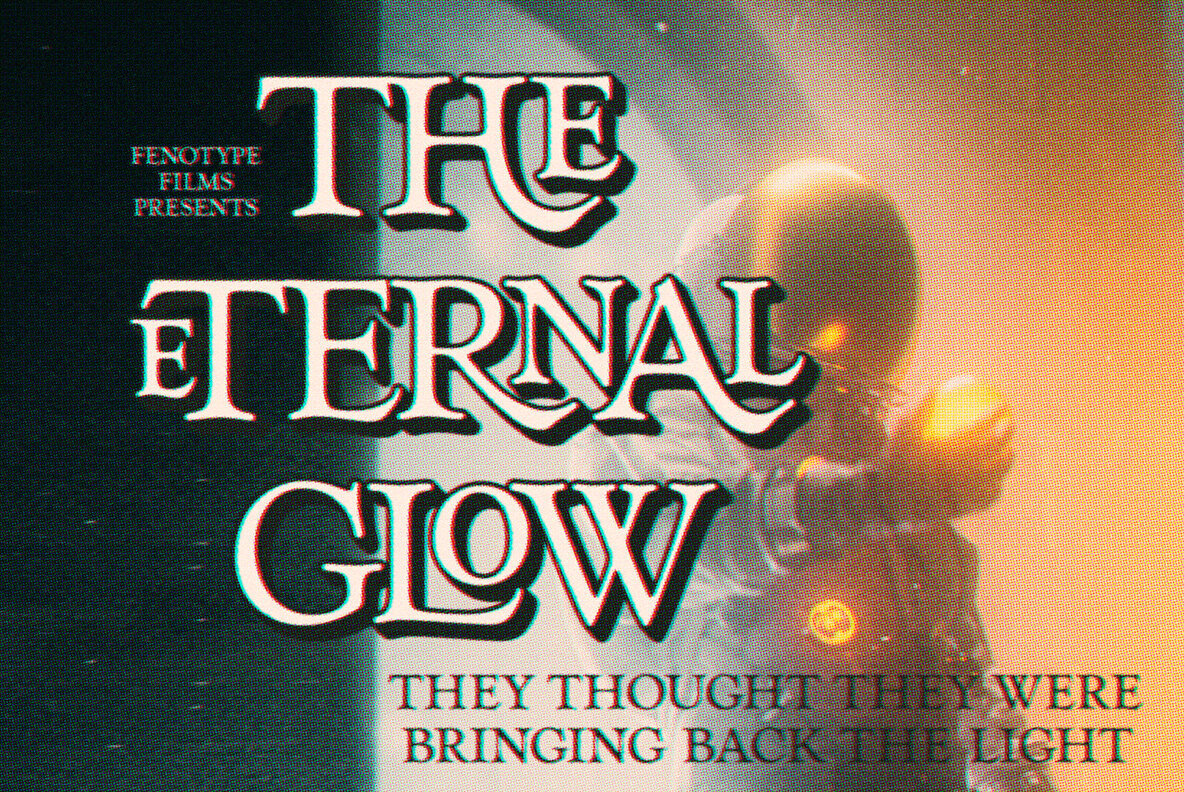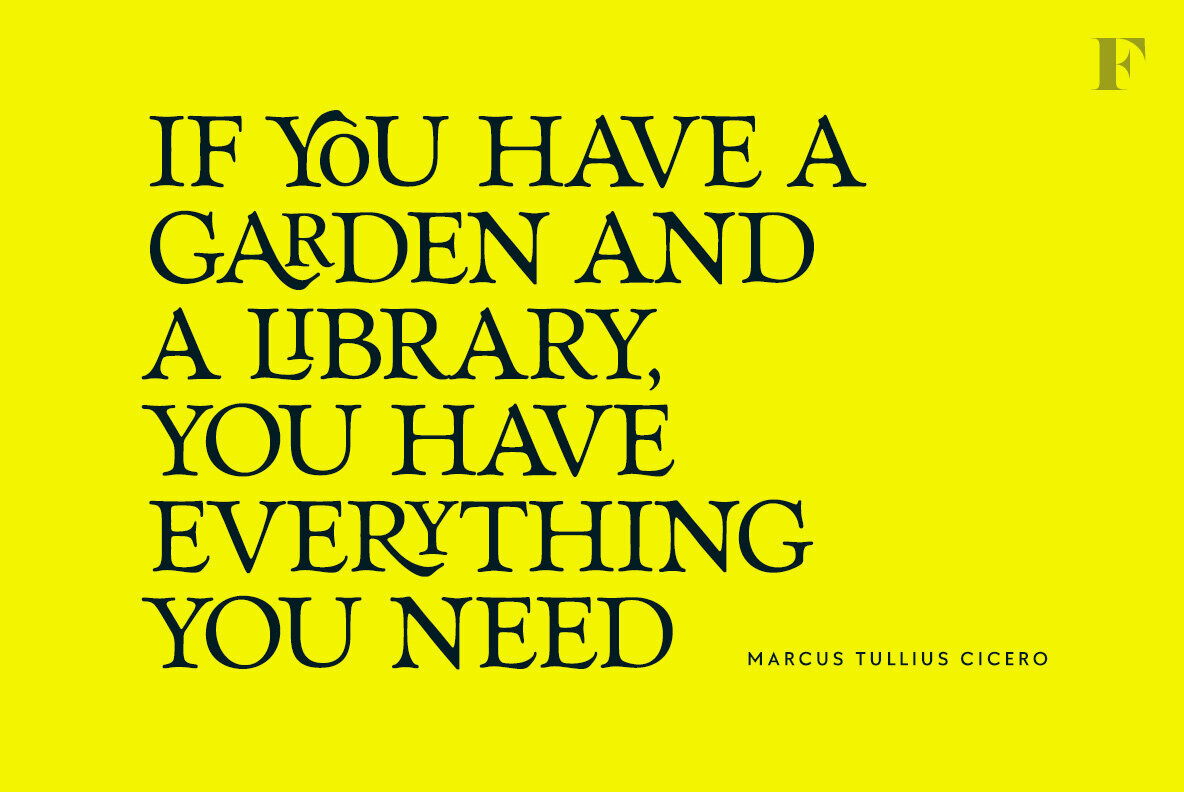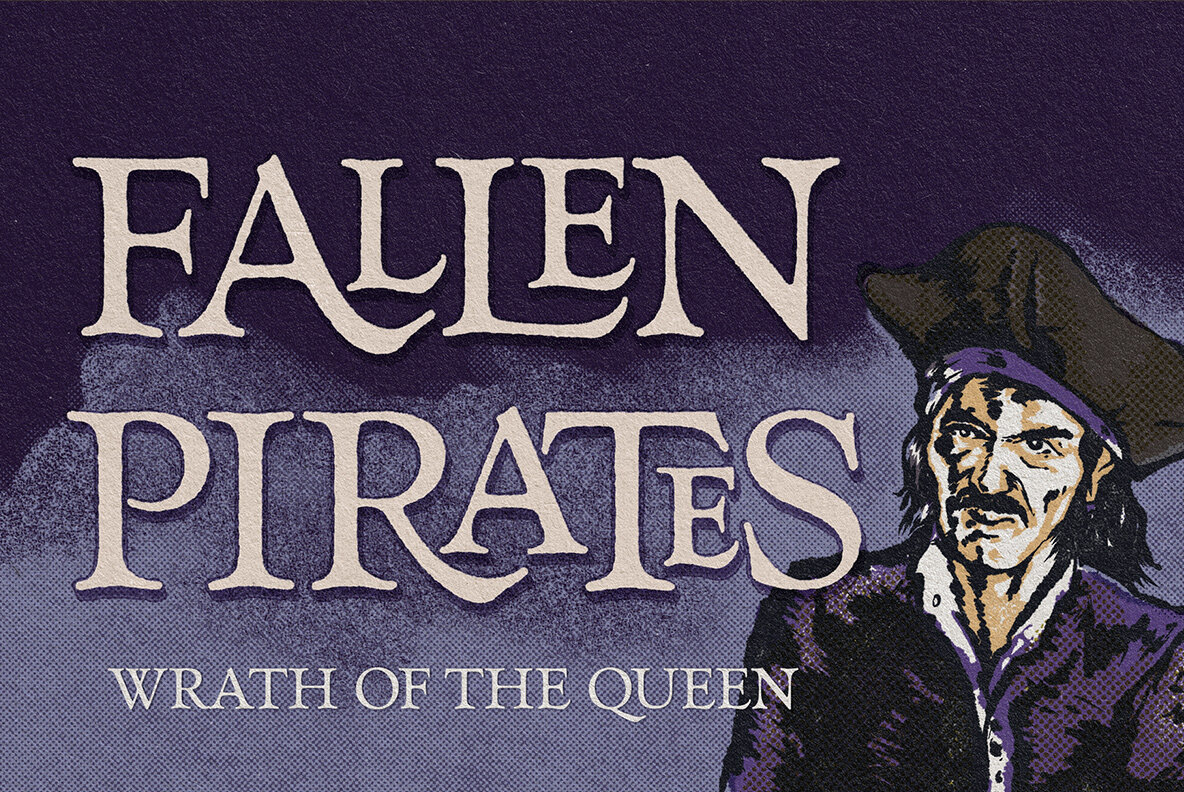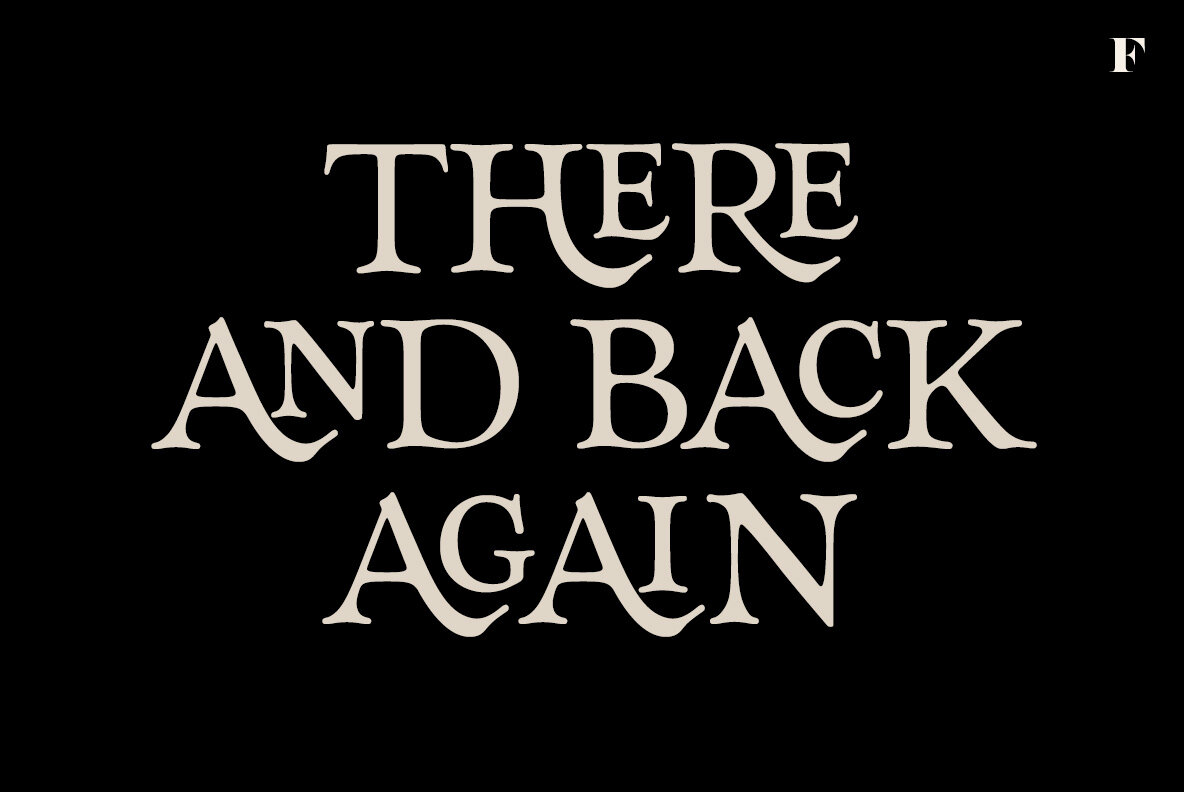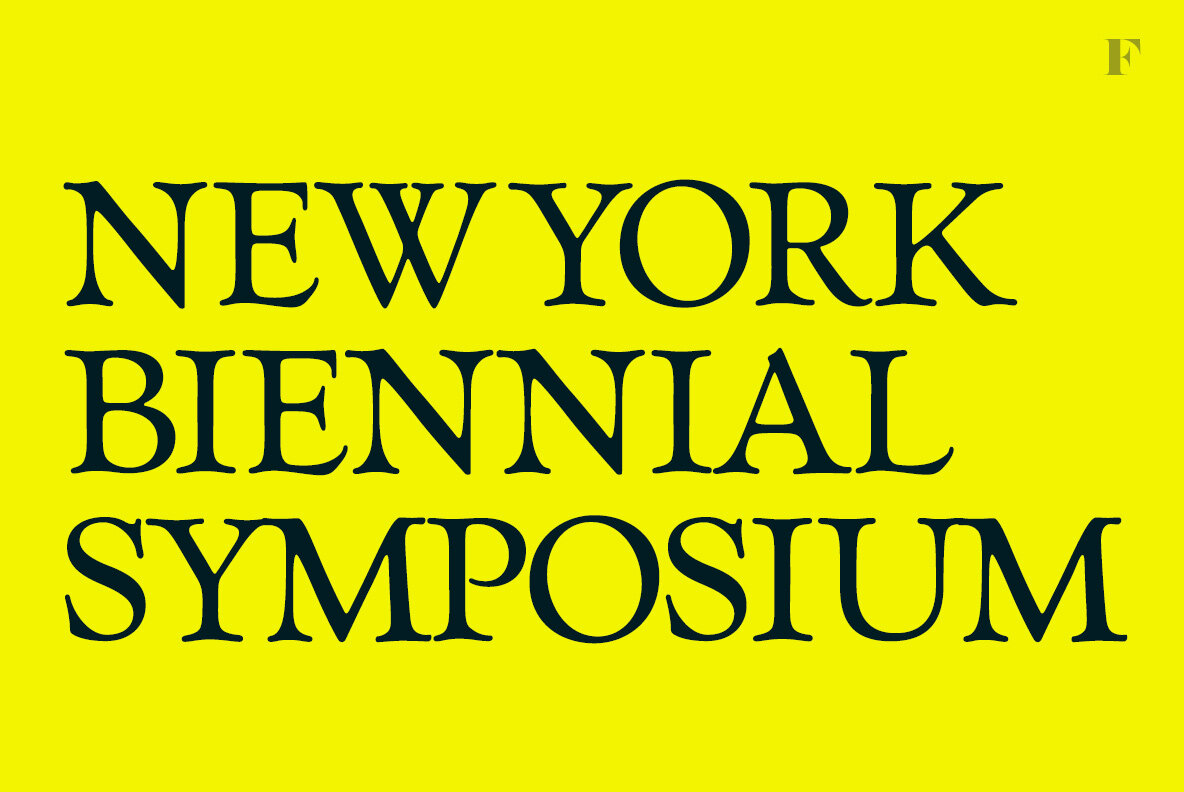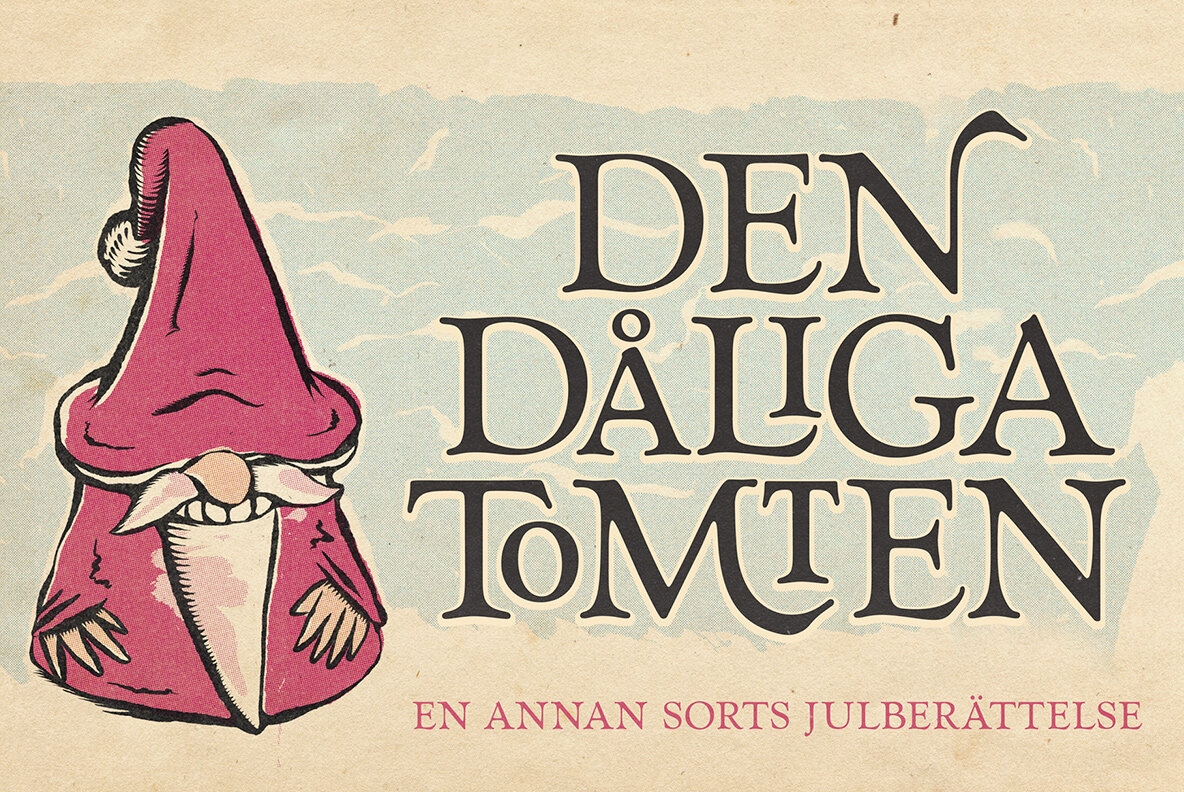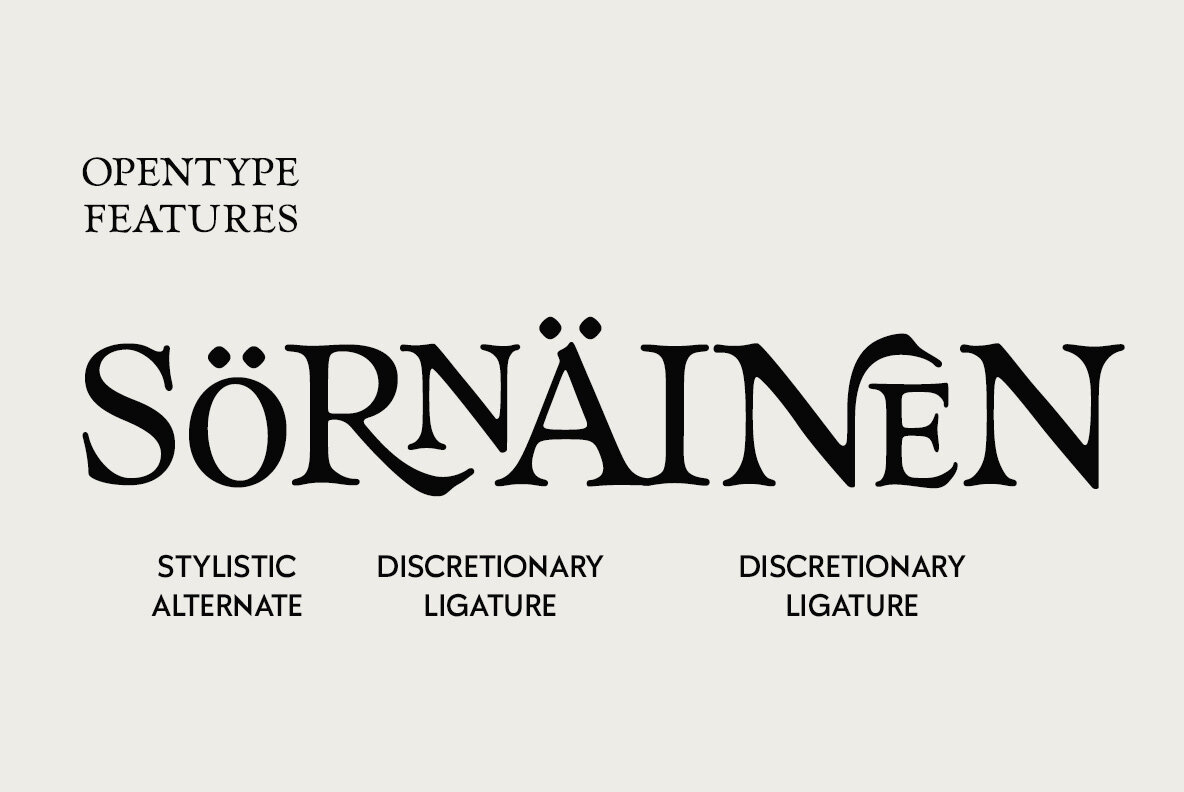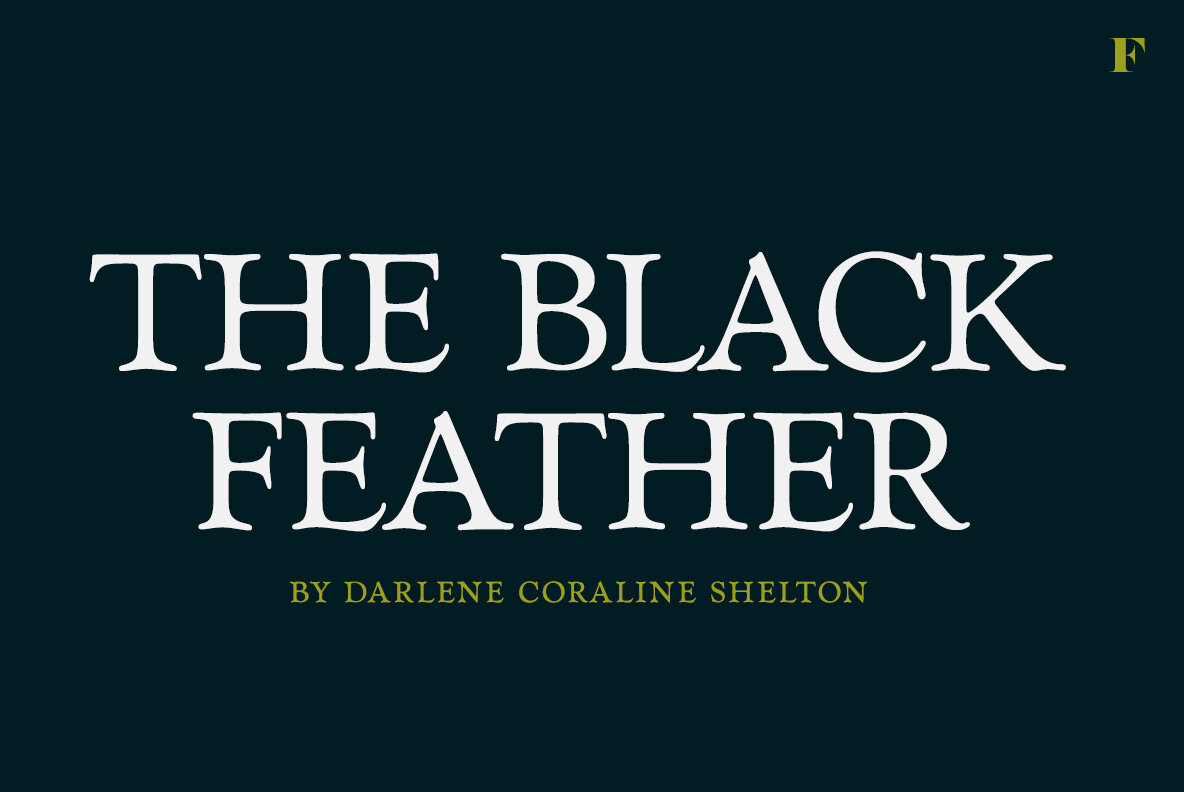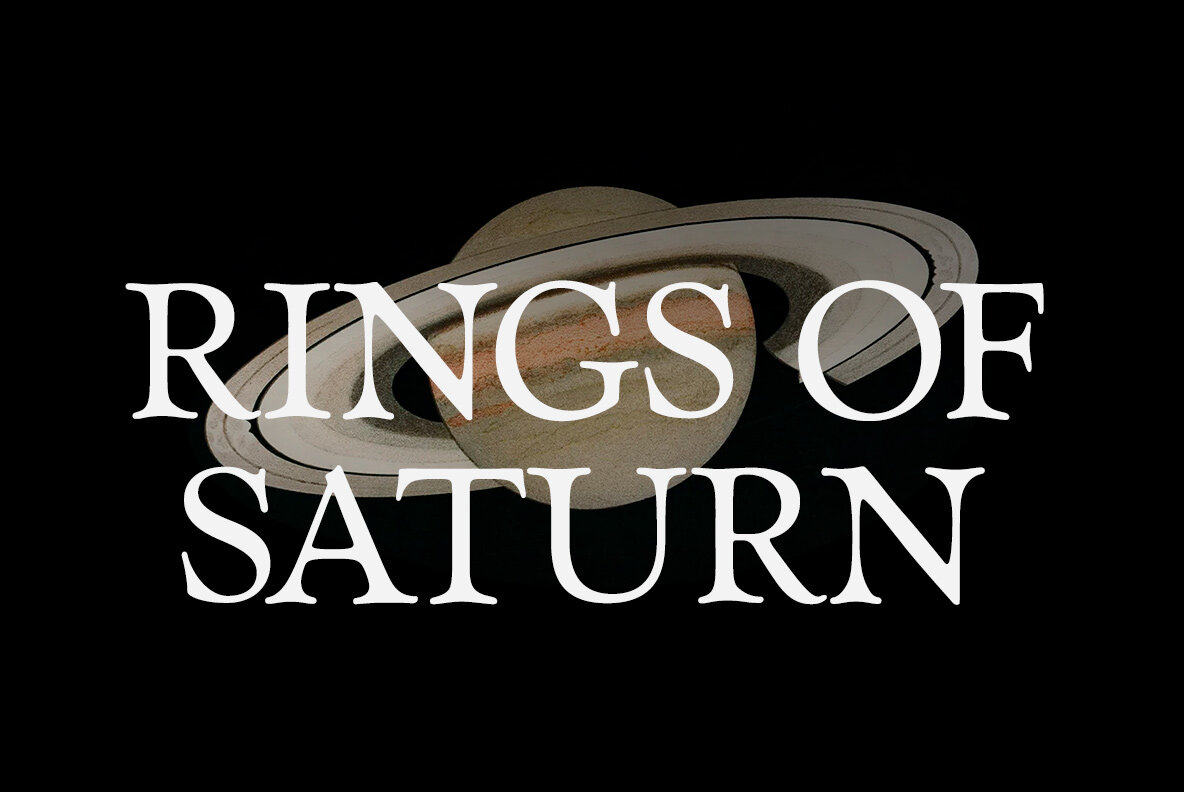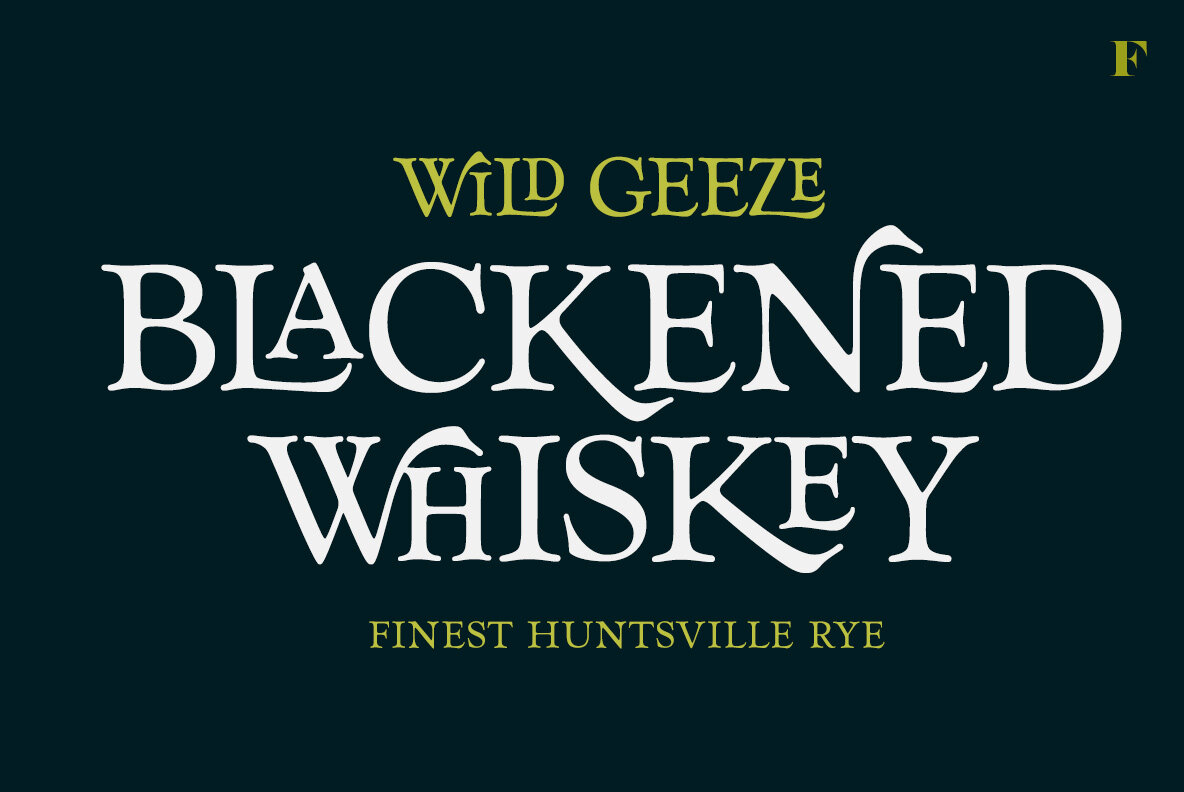
Goldie Old Style Font
Goldie Old Style Regular
Goldie, true to its name, is a captivating serif typeface designed specifically for eye-catching headlines. Its rounded serifs and subtle charm make it a perfect fit for movie titles, novel covers, posters, and other design projects that require a touch of classic elegance. Additionally, Goldie Old Style offers 230 interlocking Discretionary Ligatures, Swash Alternates, and a selection of scaled-down accented characters that match the height of the rest of the font with accents marks on top of them set in uppercase Stylistic Alternates, ensuring easy and headline creation with harmonized text blocks.